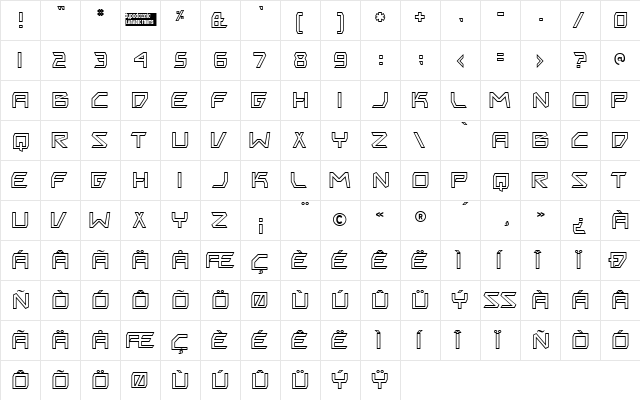
Biting My Nails Outline Regular
Design Context for Biting My Nails Outline Typeface
Biting My Nails Outline is built around its visual character rather than neutral utility — its distinctive forms are designed to make an impression at display sizes.
Font Pairing: Pair with a clean neutral sans-serif for body copy to let Biting My Nails Outline's character lead without overwhelming the composition.
Pro Tip: Treat Biting My Nails Outline as the centrepiece of your typographic hierarchy. One strong heading set in a decorative face can carry an entire layout.